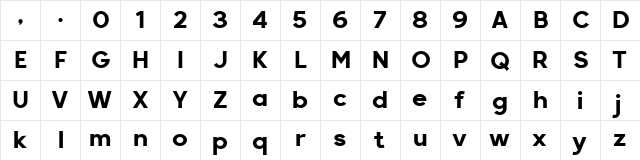
Retroica Regular
| Foundry | Runsell Studio |
| Designer | Edi Gunawan |
Design Context for Retroica Typeface
Retroica has the warm character of retro typography — evoking diners, record sleeves, and the golden age of print advertising.
Font Pairing: Combine Retroica with a simple slab or neutral sans — period-accurate companions reinforce the vintage feel without competing for attention.
Pro Tip: Use Retroica for headlines and pull quotes rather than body copy — its personality is best appreciated in short, focused bursts.